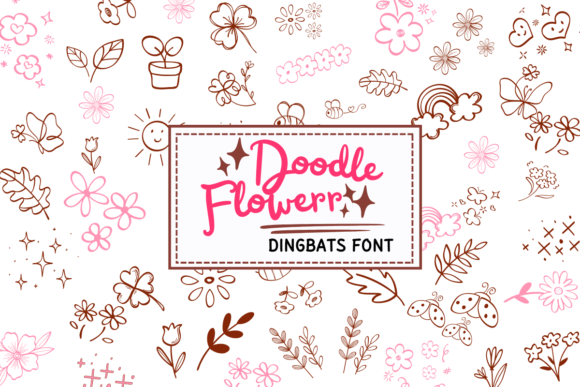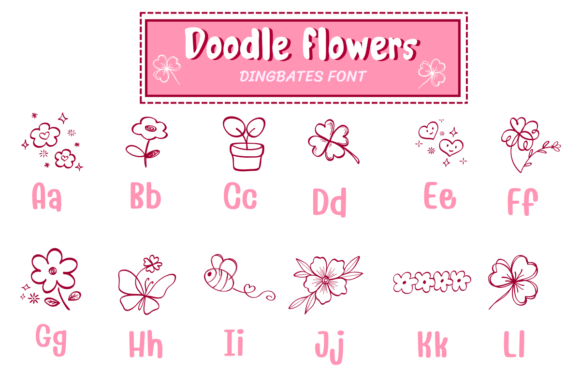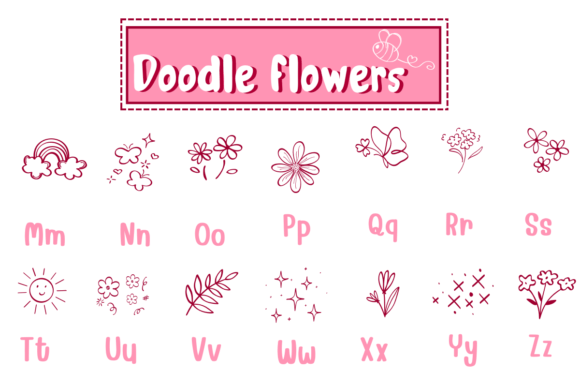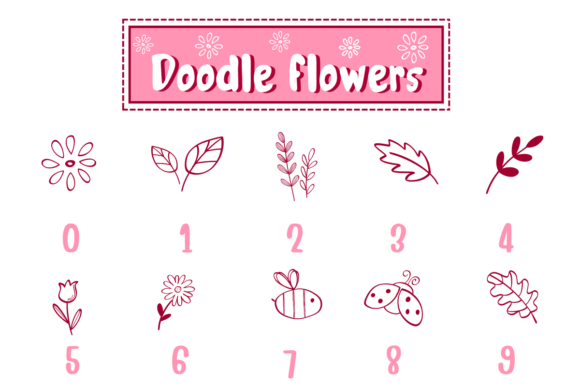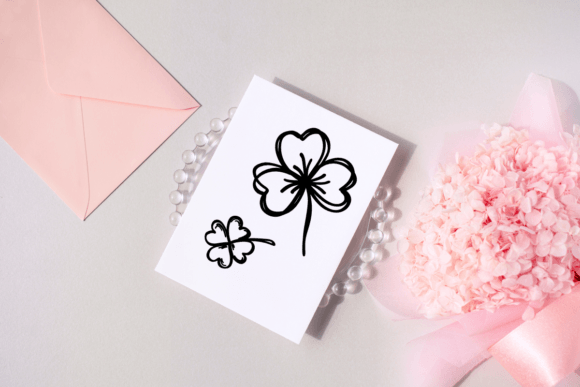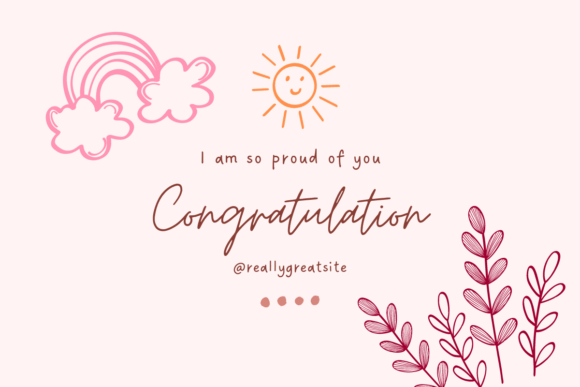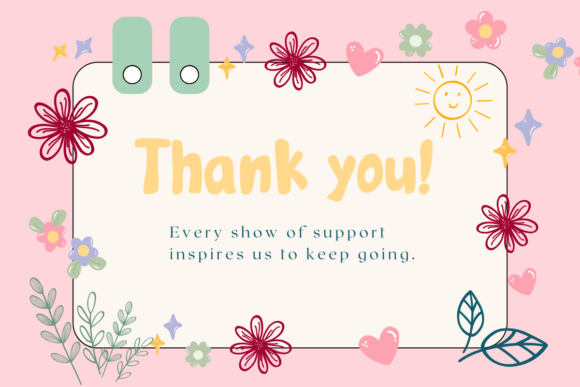
The Flower Power of Typography: Unlocking the Magic of Doodle Flowers Font
Have you ever stared at a blank page, struggling to find the perfect font to match your creative vision? I know I have! It’s those moments of frustration that make us appreciate the little things – like stumbling upon the perfect font that brings our design to life. For me, that moment came when I discovered the whimsical world of the Doodle Flowers Font.
This charming font is more than just a pretty face – it’s a collection of hand-drawn flowers that add a touch of personality to any project. With each letter designed to resemble a different flower, the Doodle Flowers Font is the perfect way to inject some nature’s beauty into your designs. Whether you’re creating invitations, cards, or anything in between, this font is sure to make your projects stand out.
As a designer, you know how valuable it is to have a versatile font that can add a touch of elegance and whimsy to your work. The Doodle Flowers Font is a game-changer, offering endless possibilities for creative expression. So why settle for boring typography when you can add a dash of floral flair to your designs?
Doodle Flowers Font Key Features
- Unique Hand-Drawn Design: The Doodle Flowers Font features a distinctive, hand-drawn design that adds a personal touch to any text.
- Unique Characteristics: The font features intricate, swirling patterns and delicate details that evoke a sense of whimsy and playfulness.
Doodle Flowers Font Review
Overall, I’m quite fond of the Doodle Flowers Font. It’s perfect for adding a playful touch to your designs, especially when working on projects that require a whimsical feel. ✨ The font’s irregularities and imperfections give it a charming, hand-drawn quality that’s hard to replicate with more formal fonts.
One of the things I like most about Doodle Flowers is its versatility. It works well for a variety of projects, from greeting cards and invitations to children’s book illustrations and even some fashion designs. ✨ The font’s playful feel also lends itself well to social media graphics and promotional materials.
- ⚠️ The font may not be suitable for professional or formal projects, as its casual nature may come across as unprofessional.
- ⚠️ Some users may find the font’s irregularities and imperfections distracting or difficult to read, especially in larger blocks of text.
Despite these limitations, I think Doodle Flowers is a great addition to any designer’s toolkit. It’s perfect for adding a touch of whimsy and personality to your designs, and its versatility makes it a great choice for a variety of projects. Overall, I’d give it 4 out of 5 stars.
The Doodle Flowers Font is perfect for creating playful and whimsical designs for:
- Gift tags and labels
- Illustrated quotes and sayings